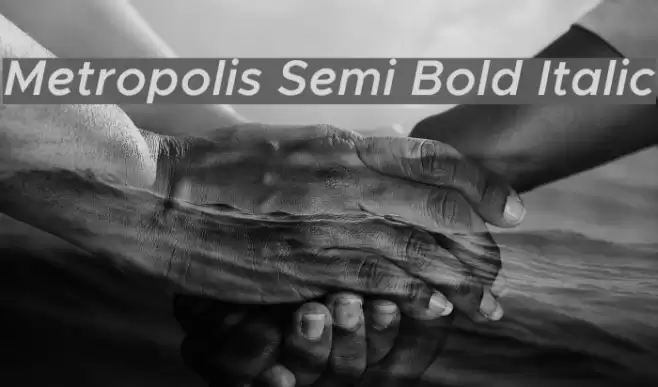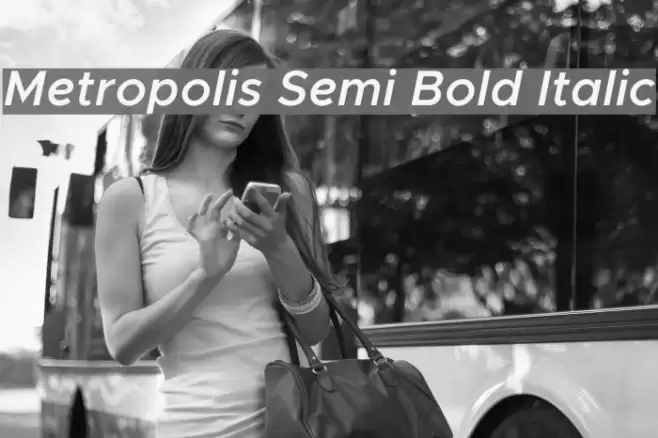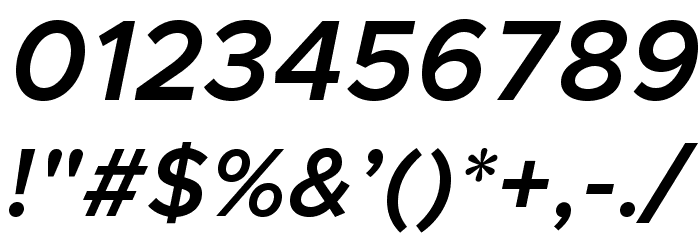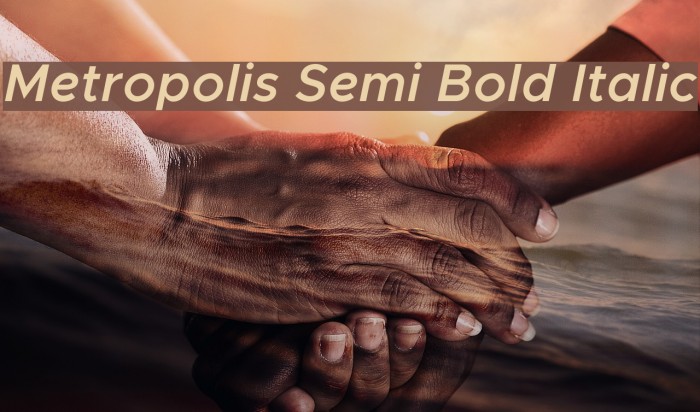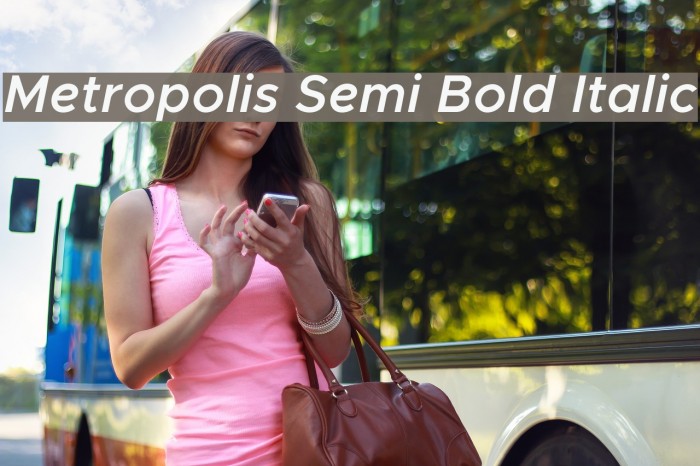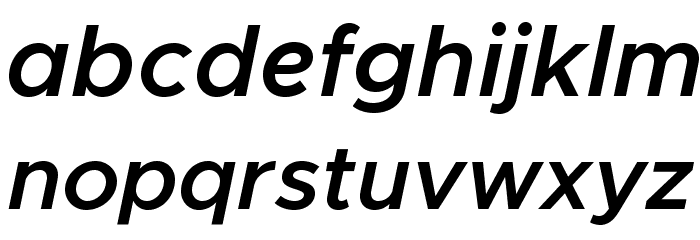
Metropolis Semi Bold Italic Font
Metropolis Semi Bold Italic Description
This font features a modern sans-serif style with a semi-bold weight and italic posture. The characters are clean and geometric, offering a contemporary look that is both professional and approachable. The uppercase letters are slightly taller than average, providing a sense of authority, while the lowercase letters maintain a friendly and accessible appearance. The numerals are clear and easy to read, making them suitable for various applications. The special characters are well-defined, ensuring versatility in design projects. Overall, this font balances elegance and functionality, making it ideal for a wide range of uses.
A modern, semi-bold italic sans-serif font with clean, geometric lines from Uncategorized fonts.
- Proposed Projects: Ideal for branding, advertising, web design, and editorial projects where a modern and professional look is desired.